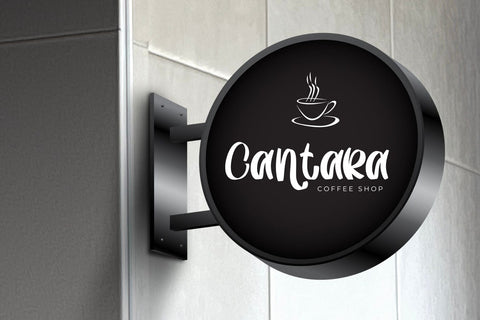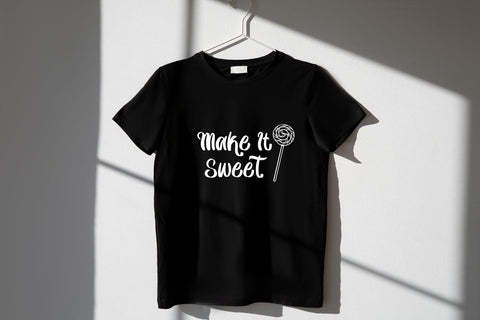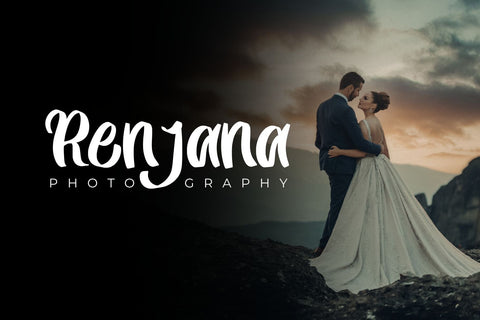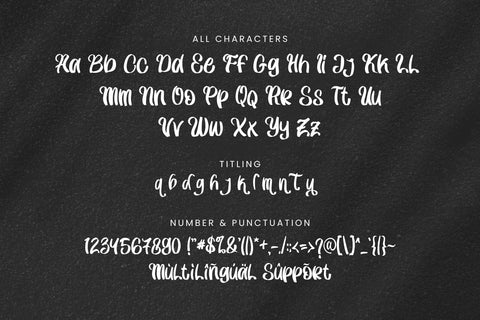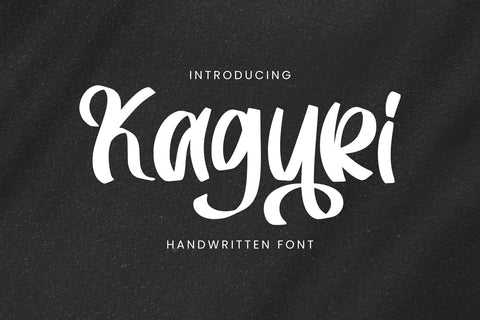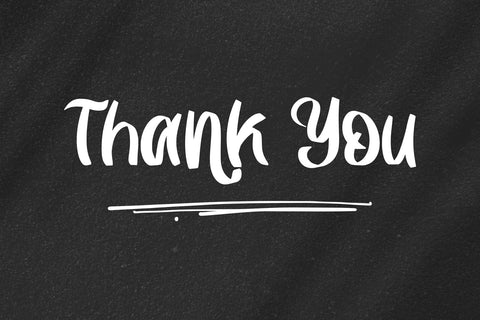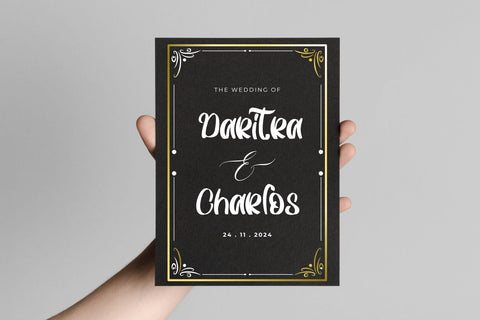
Kaguri - Handwritten Font
Kaguri is a stylish handwritten font designed to bring sophistication and charm to any project. Perfect for logos, packaging, or posters, its smooth curves and modern flair make it a versatile choice for creative designs.